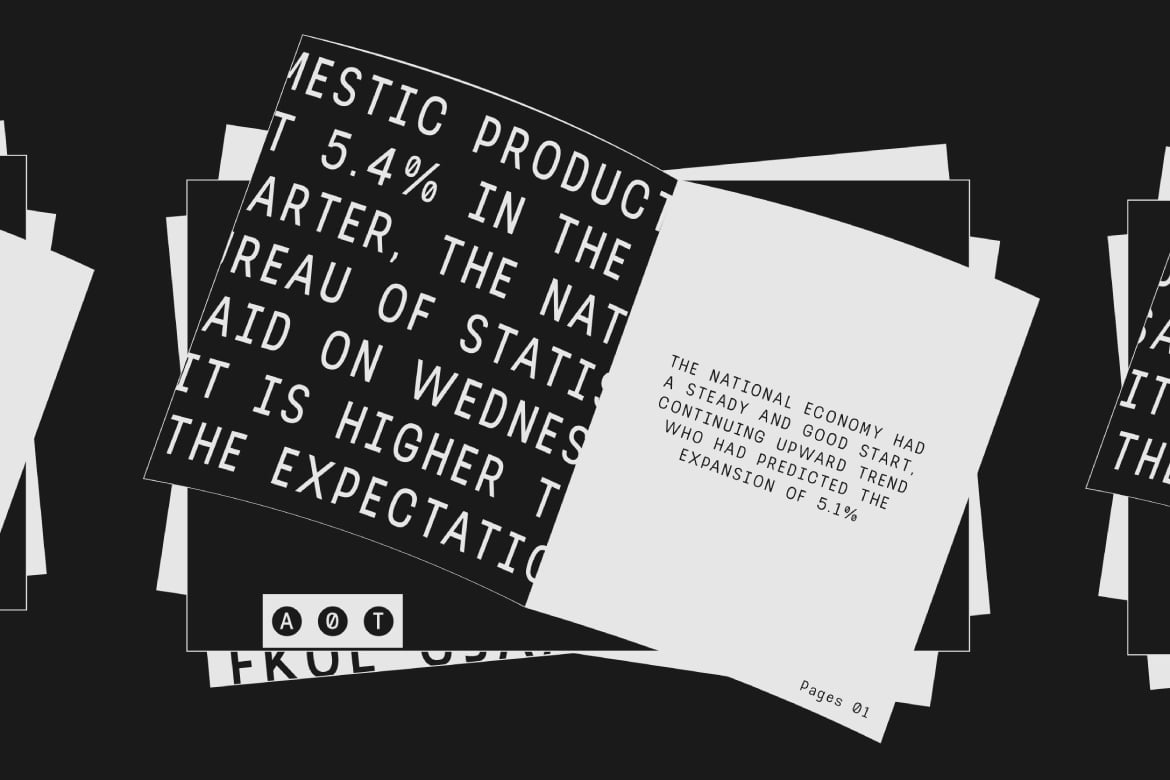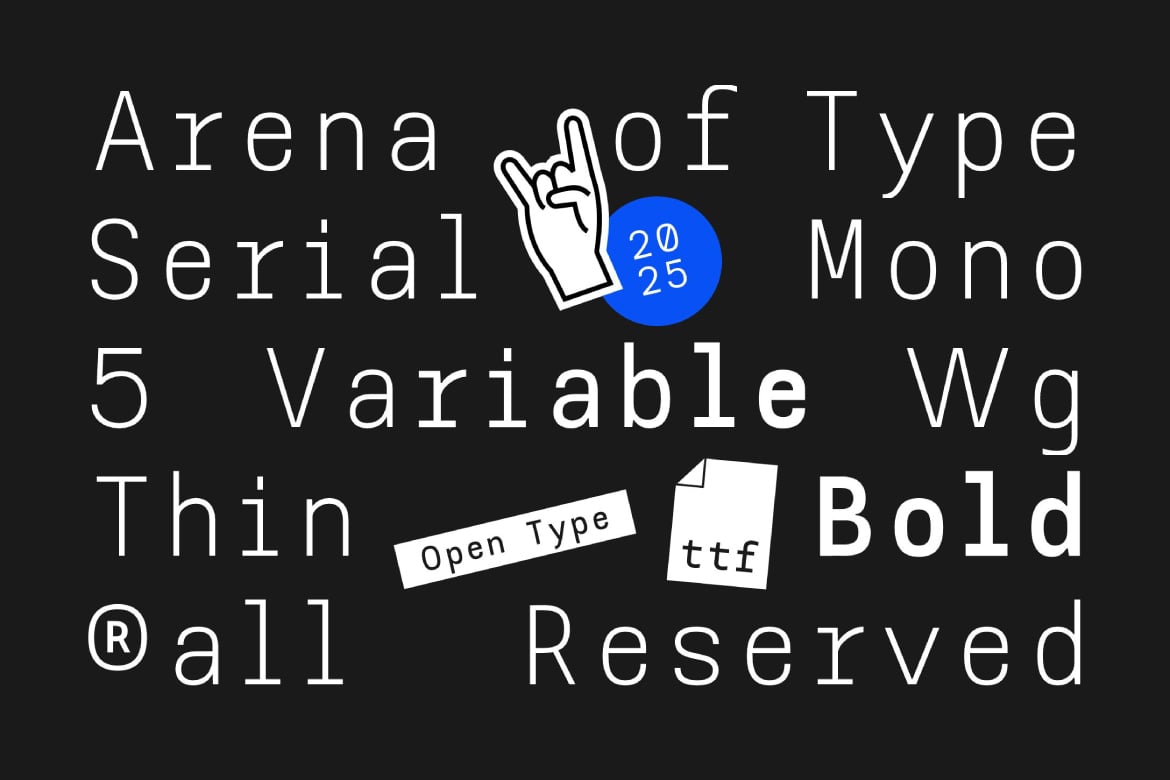
AOT Serial Mono – Modern And Clean Monospace Font
Arena of Type released Serial Mono in 2025, designed by Prio Nurokhim Aji. It is a plain, even monospace with squared-off curves and simple, open shapes. Nothing about it is fussy, which is why it works as well for a block of economic news in the specimen as for a single big word on a poster.
The family covers five weights, Light, Regular, Medium, Semi Bold and Bold, plus a variable font that moves smoothly between them. Every character takes the same width, so tables, code and lists line up without extra work. The free download here includes OTF, TTF and WOFF files.
Best uses for AOT Serial Mono
• Code snippets and developer websites
• Tech and software branding
• Data tables and financial reports
• Posters with a typewritten, editorial feel
• Receipts, tickets and labels
Pair Serial Mono with a proportional sans for body text. Inter and Space Grotesk both keep a tech-friendly tone. For a print-style contrast, set headings in Serial Mono and body copy in Source Serif 4.
AOT Serial Mono – Modern And Clean Monospace Font FAQ
What free monospace font is like AOT Serial Mono?
IBM Plex Mono and Roboto Mono are free, open-licence monospace families with several weights and a similarly clean style.
Is AOT Serial Mono good for coding?
Yes. Every character has the same width and the shapes are clear, so it is easy to read in an editor. Check that the free file covers the symbols you use most before you switch.